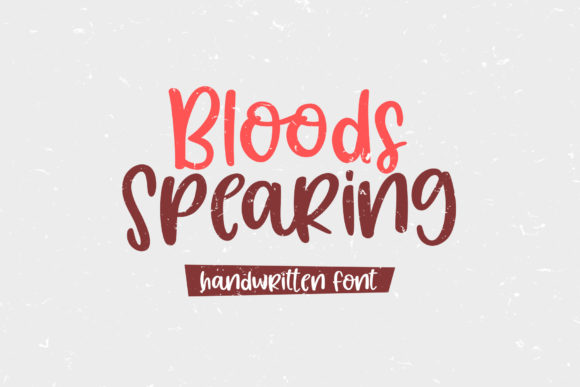
Journey into the realm of creativity and let your imagination run wild with Bloods Spearing Font, a script font family that exudes playfulness, fun, and a touch of whimsy. This captivating font, meticulously crafted by Beautypes, is designed with a hand-lettering technique that breathes life into your digital creations, adding a natural and refreshing aura to every project.
Step into a world where words dance with grace and charm, where every letter carries a story, and every design tells a tale. Bloods Spearing Font is the perfect companion for children's products packaging, book covers, logotypes, event signs, and anything that yearns for a quirky and playful touch. Its whimsical nature adds a dash of magic to your creations, making them stand out from the mundane.
With Bloods Spearing Font, you'll discover a world of possibilities, where your imagination knows no bounds. Its playful curves and charming imperfections create a sense of authenticity and warmth, inviting viewers to engage with your content on a deeper level. Whether you're designing a children's book, creating a vibrant poster, or crafting a captivating logo, Bloods Spearing Font will infuse your work with a touch of enchantment.
Immerse yourself in a sea of creativity, where words and art intertwine seamlessly. Bloods Spearing Font is not just a font; it's an expression of your individuality, a reflection of your unique style. Unleash your inner artist and let your creativity flourish as you explore the endless possibilities that await you with this remarkable font family.